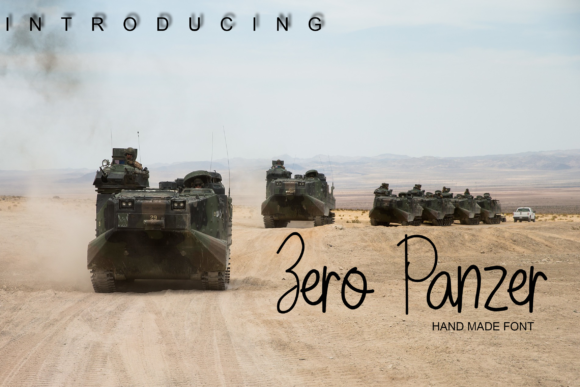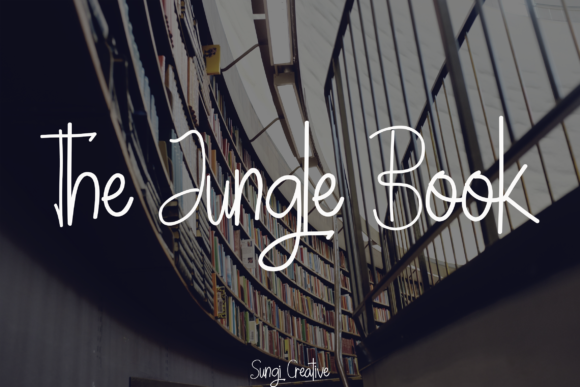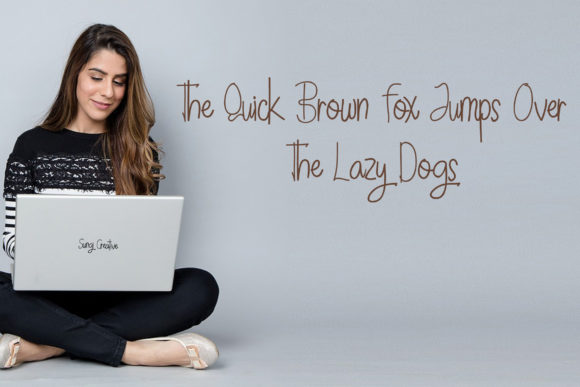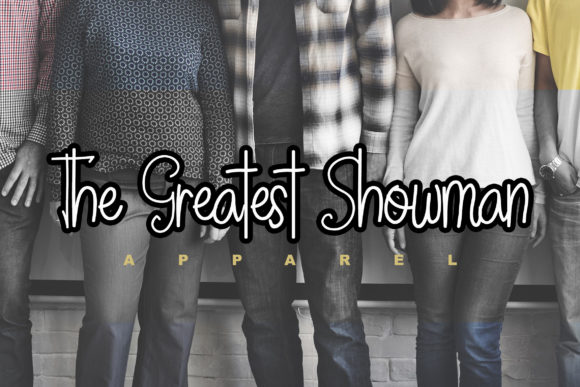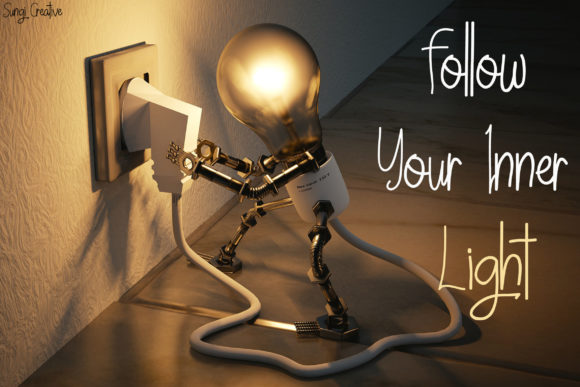
HomeScript FontsZero Panzer Font Script Fonts Zero Panzer Font FacebookXPinterestWhatsApp Zero Panzer Font Poster 2 Zero Panzer Font Poster 3 Zero Panzer Font Poster 4 Zero Panzer Font Poster 5 About Zero Panzer Font Zero Panzer font is a handwritten script. Get inspired by its authentic and playful charm! DOWNLOAD ON CREATIVE FABRICAThis font is sold and delivered by Creative Fabrica. Font Canyon may earn a commission if you buy through this link. People also explored Sunset Font Noreman Font Likes Snow Font Whiskey Font Hardly Font Belina Monogram Font Snowhosta Script Font Candela Font Heliconia Font 301 0 TagsZero Panzer Font Previous articleSparta FontNext articleMemory Font LEAVE A REPLY Cancel reply Comment: Please enter your comment! Name:* Please enter your name here Email:* You have entered an incorrect email address! Please enter your email address here Website: Save my name, email, and website in this browser for the next time I comment. Personal Use Free Rennoya Personal Use Free Read more about this font Cuttering Personal Use Free Read more about this font Rolling Door Personal Use Free Read more about this font Baby Magnolia Personal Use Free Read more about this font BLOG Using Fonts in Digital Marketing: Tips to Strengthen Your Brand Identity In the realm of digital marketing, every visual element plays a crucial role in shaping a brand's identity, and fonts are no exception. The... To increase your work productivity, choose the most readable fonts. Transform Your Website: Elevate Your Typography with 7 Best Web Font Generators Where to Buy American Fonts Online in 2024